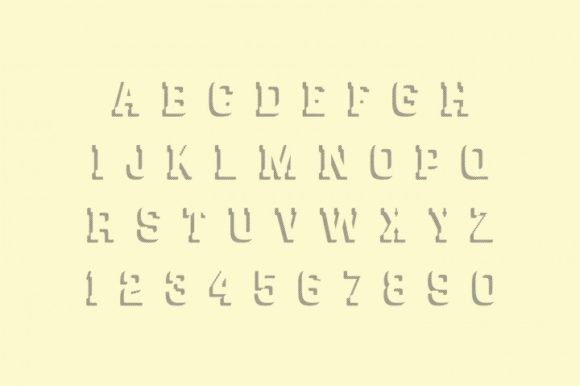
Introducing Dimension Font: Create Stunning 3D Illusions with this Unique Typeface
Are you tired of using the same old fonts for your designs? Look no further! Dimension Font is here to take your typography to the next level. This striped shadow typeface is designed to create interesting 3D illusions, making it perfect for eye-catching designs. In this article, we’ll explore the features of Dimension Font, its uses, and provide tips on how to make the most of this attractive display font.
What is Dimension Font?
Dimension Font is a unique display font that features a striped shadow effect, giving it a 3D appearance. The font is designed to create an illusion of depth, making it perfect for designs that require a touch of sophistication and creativity. With its distinctive style, Dimension Font is sure to grab attention and leave a lasting impression.
Key Features of Dimension Font
- Striped Shadow Effect: The font features a striped shadow effect that creates a 3D illusion, making it perfect for designs that require depth and dimension.
- Unique and Eye-Catching: Dimension Font is designed to grab attention and make a statement. Its distinctive style ensures that your designs stand out from the crowd.
- Versatile: The font is suitable for a wide range of designs, from posters and flyers to logos and branding materials.
Uses of Dimension Font
Dimension Font is perfect for designers and crafters who want to add a touch of creativity and sophistication to their designs. Here are some uses of the font:
- Posters and Flyers: Use Dimension Font to create eye-catching posters and flyers that grab attention.
- Logos and Branding: The font is perfect for creating unique and memorable logos and branding materials.
- Social Media Graphics: Dimension Font can be used to create stunning social media graphics that stand out from the crowd.
- Packaging Design: The font can be used for packaging design, adding a touch of creativity and sophistication to product labels.
Tips for Using Dimension Font
Here are some tips for using Dimension Font to create stunning designs:
- Experiment with Colors: Try out different color combinations to create unique and eye-catching designs.
- Play with Shadows: Experiment with different shadow effects to create interesting 3D illusions.
- Mix and Match: Combine Dimension Font with other fonts to create unique and creative typography.
- Keep it Simple: Don’t overcomplicate your design. Keep it simple and let the font do the talking.
| Font Name | Dimension Font |
| Author | bywahtung |
Dimension Font is a unique and eye-catching display font that is perfect for designers and crafters who want to add a touch of creativity and sophistication to their designs. With its striped shadow effect and 3D illusion, the font is sure to grab attention and leave a lasting impression. By following the tips outlined in this article, you can create stunning designs that showcase the full potential of Dimension Font.